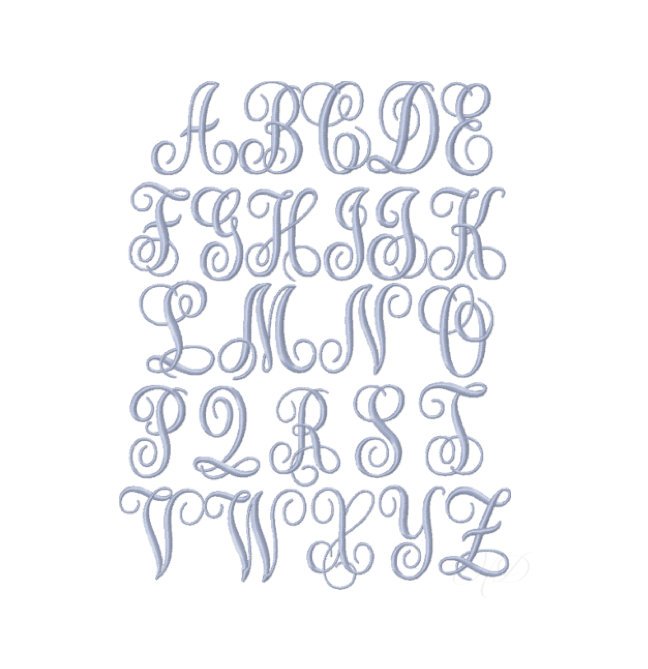
Libby Satin Stitch Small Embroidery Font
Elevate your crafting projects with the Libby Satin Stitch Embroidery Font. This elegant, single-color satin stitch monogram font features overlapping script letters, making it an ideal choice for personalizing gifts or home decor. Each font package includes 26 letters in various sizes, enabling you to create stunning three-letter monograms effortlessly.